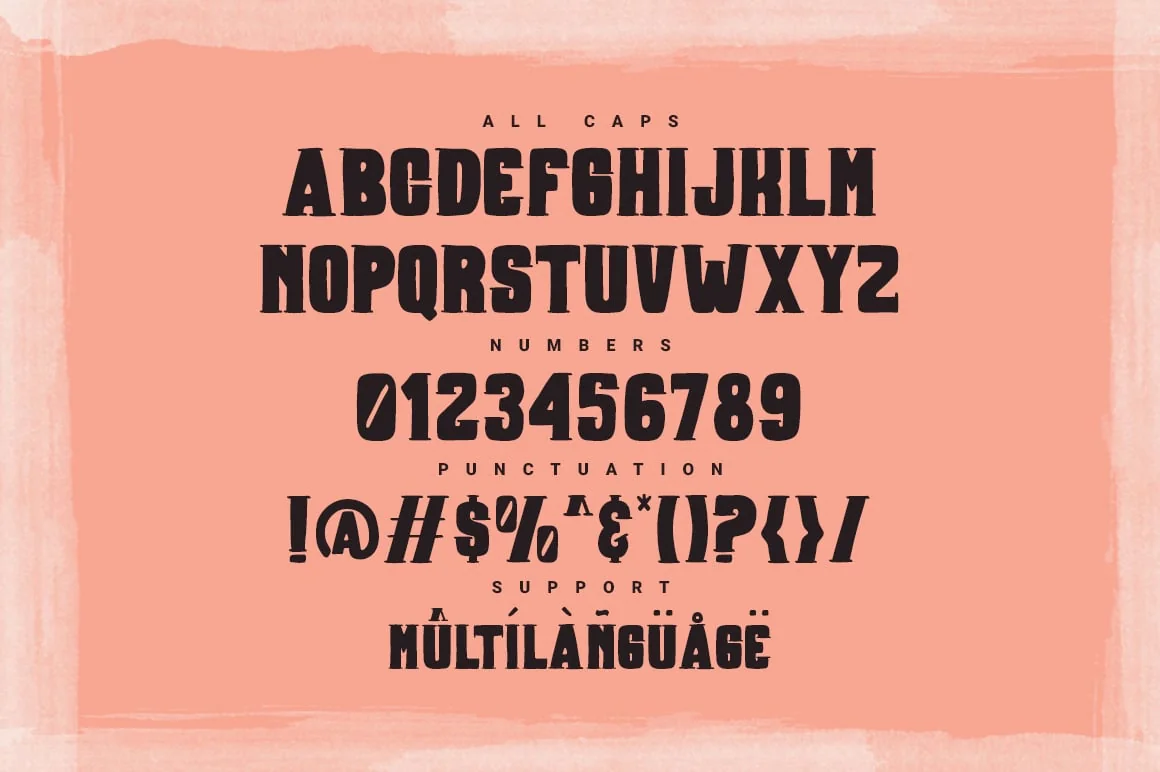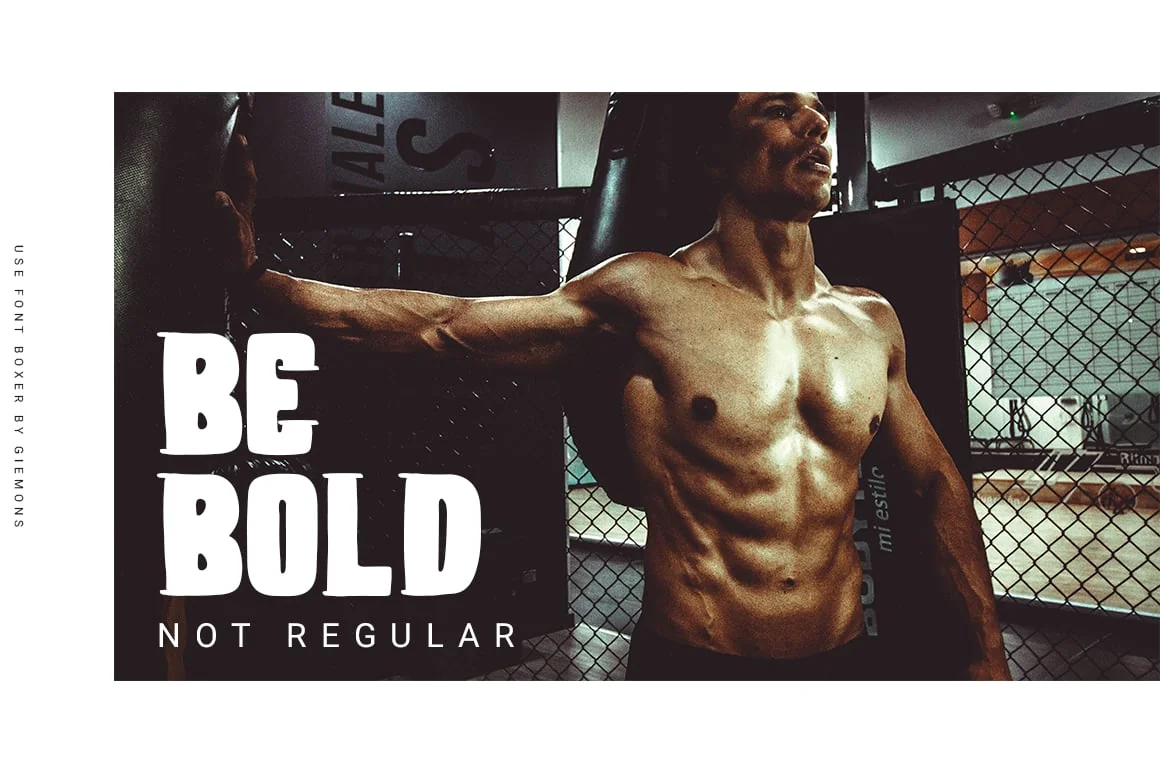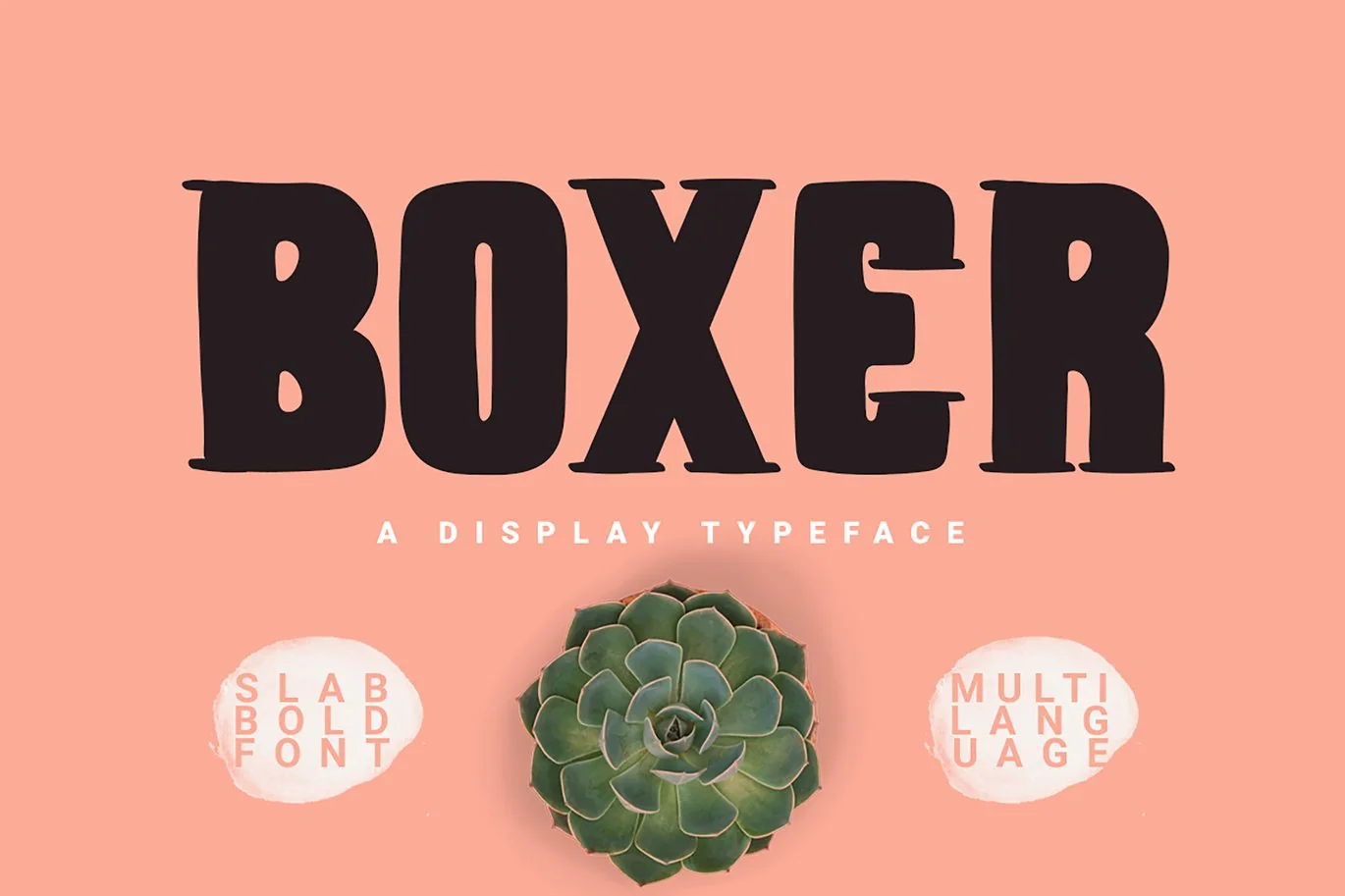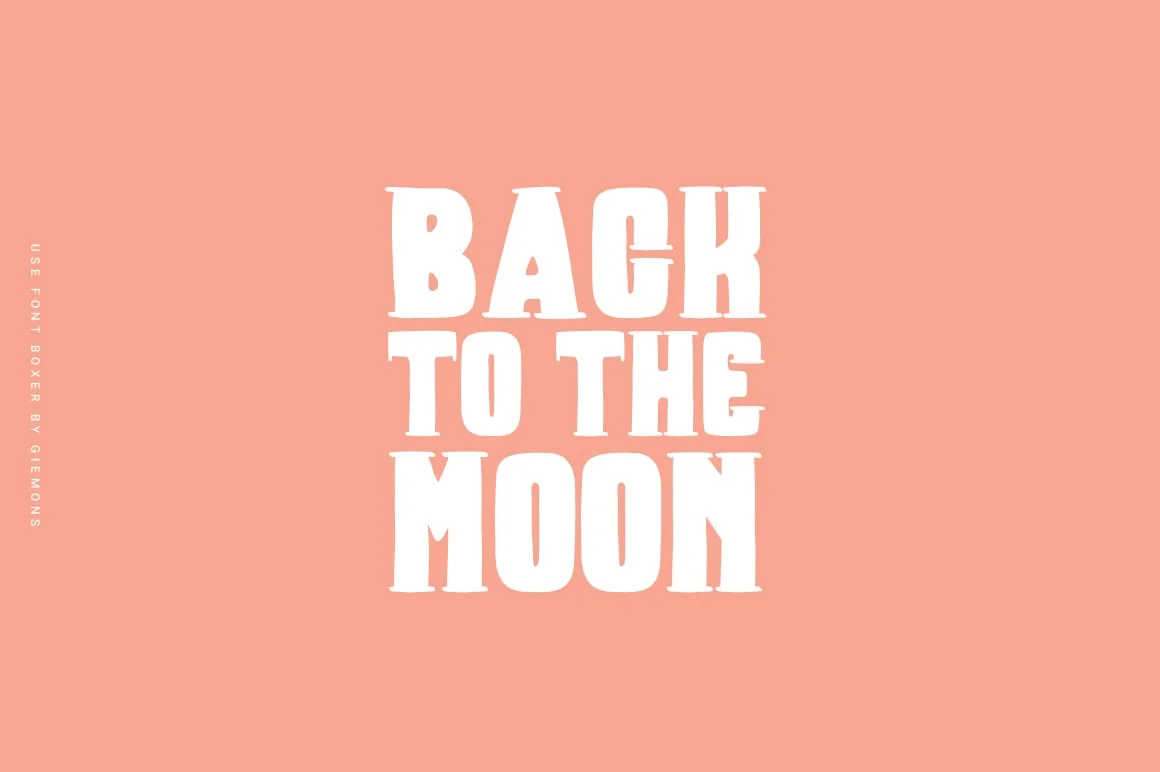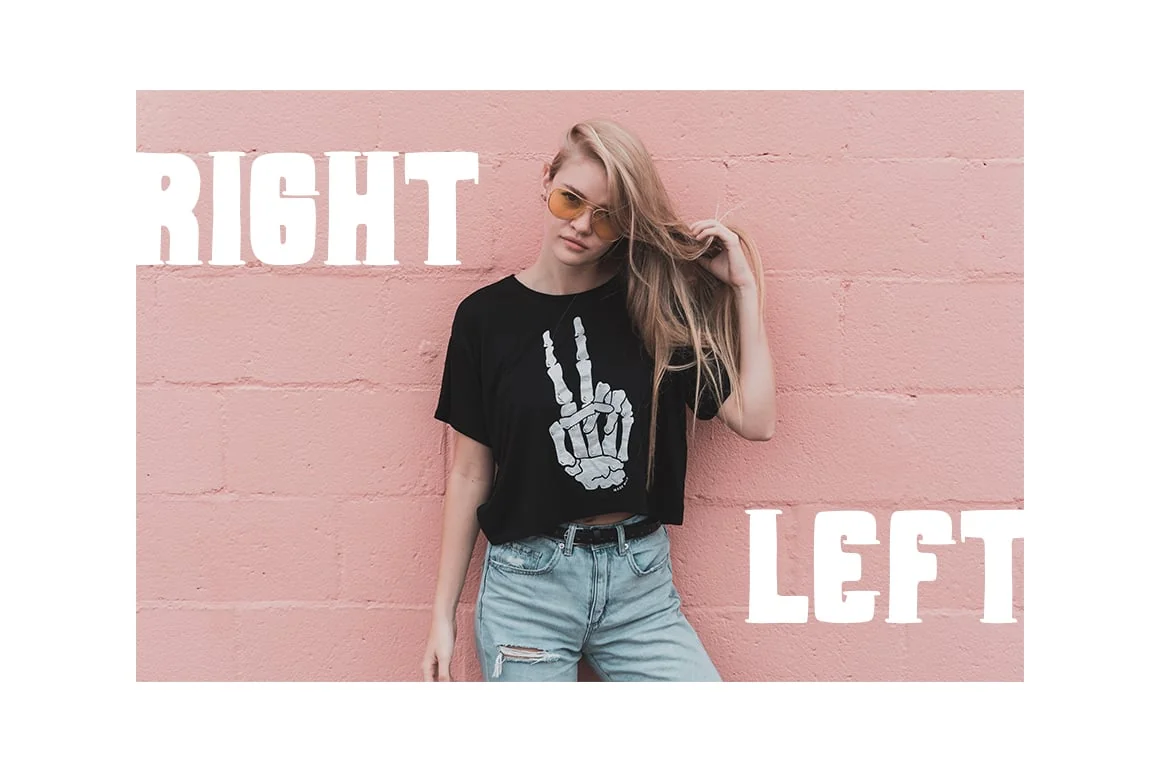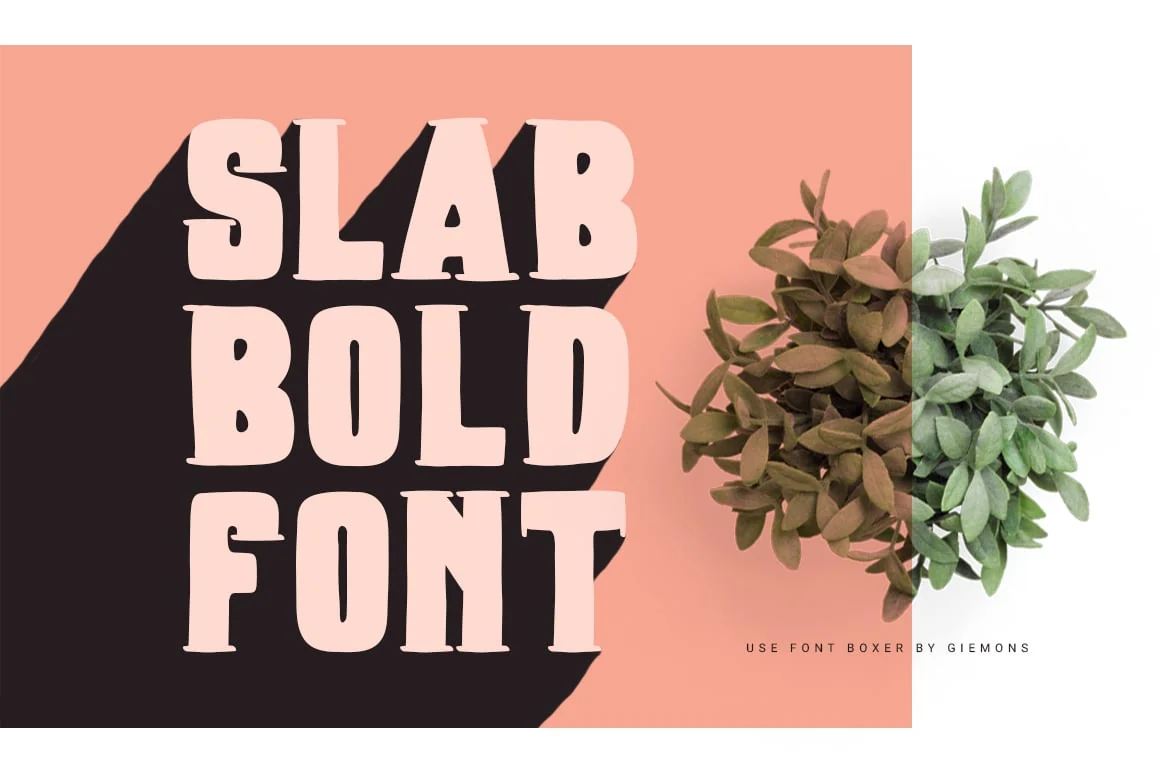
Boxer Typeface
a Boxer Typeface is Slab Bold Font. Can make it easier to convey the message in your design. Use for awesome display, wedding, birthday, labeling, clothing, movie sceen, poster, movie title, gigs, album covers, logos, and much more.
All Caps
Numerals & Punctuations